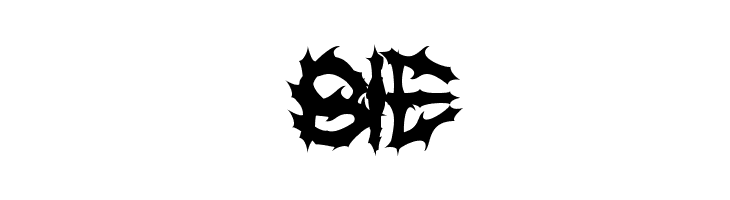
( Fonts by Masa Aska Sanurumi )
A clean, handwritten-style font with thin, uniform strokes and a modern aesthetic.
( Fonts by Jaime Rangel Castro )
A playful, bold font with cartoonish faces on each character.
( Fonts by Masa Aska Sanurumi )
A bold, playful handwritten font with thick strokes and rounded edges.
A bold, playful handwritten font with rounded strokes and a casual style.
A bold, playful 3D font with a dynamic shadow effect.
An elegant and decorative script font with ornate letterforms.
A decorative, modern font with layered, intersecting lines creating a textured look.
( Fonts by Fontherapy | Kalifont Studio )
A bold, distressed font with a vintage, athletic style.
( Fonts by JSH creates )
A bold, brush-style font with dynamic and expressive strokes.
A modern, elegant script font with flowing cursive letters.
A flowing, elegant cursive script with interconnected characters.
( Fonts by Chris Vile )
A rugged, industrial font with a distressed, mechanical appearance.
( Fonts by Scott Dieznyik - Kejak (formerly Cheops) )
A futuristic, mechanical font with bold, angular letterforms and geometric shapes.
A lively and expressive script font with flowing, cursive letterforms.
( Darrell Flood )
A bold, impactful font with strong, thick strokes and geometric shapes.
( Darrell Flood )
A bold, italic font with a dynamic and energetic style.
( Xerographer Fonts - Max Infeld - xerographer.blogspot.com )
A bold, geometric font with angular shapes and a modern, industrial feel.
A playful, casual handwritten font with fluid, irregular strokes.
An edgy, angular font with dynamic strokes and a tribal-inspired design.
( Andriy Dykun - creativemarket.com/NREY )
A bold, angular font with geometric shapes and strong visual impact.
A modern, double-line geometric font with a playful and airy design.
An elegant, flowing script font with graceful curves and sophisticated style.
( Fonts by Zoold )
A whimsical, hand-drawn font with fluid, irregular strokes and artistic flair.
An elegant and sophisticated script typeface with flowing curves and delicate swashes.
An elegant, italic script font with flowing, cursive letters and high contrast strokes.
( Fonts by Dumadi Studios )
A playful, bold handwritten font with smooth curves and a casual style.
A playful, handwritten font with smooth, flowing strokes.